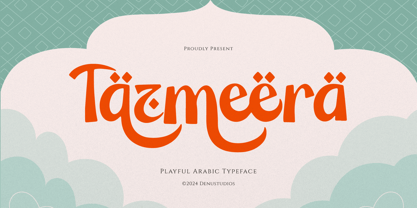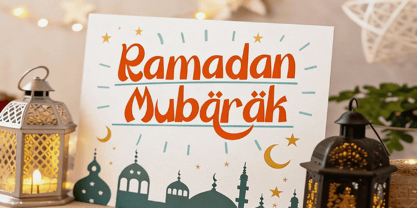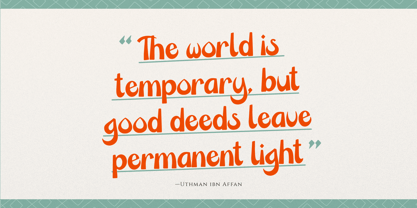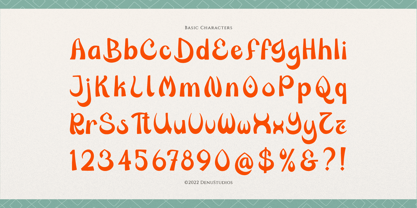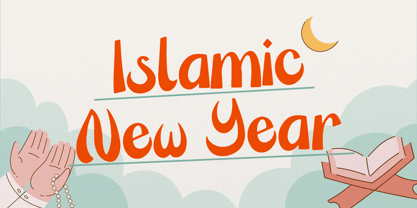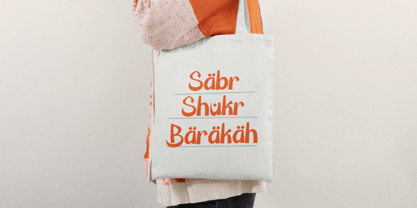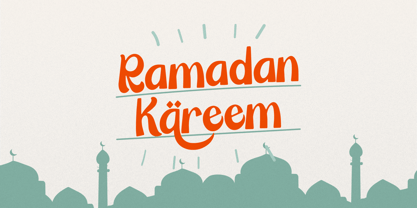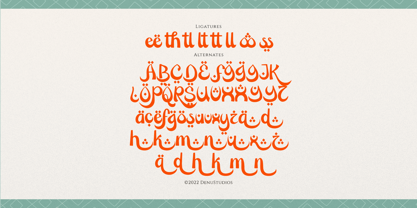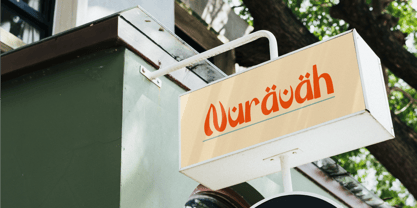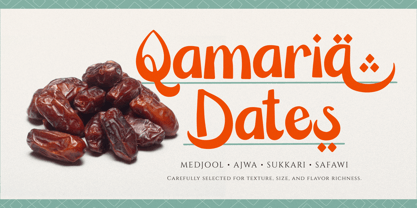
Tazmeera
por Denustudio
A família de fontes Tazmeera foi desenhada por Dede Nugraha e publicada pela Denustudio. Tazmeera contém 1 estilos. Saiba mais sobre esta família
Tazmeera | Playful Arabic Typeface, from Denustudios, suitable for any projects such as: logos, branding projects, homeware designs, product packaging, mugs, quotes, posters, shopping bags, t-shirts, book covers, name card, invitation cards, greeting cards, label, photography, watermark, special events, and all your other lovely projects that need Arabic a taste.
Designers: Dede Nugraha
Fundição: Denustudio